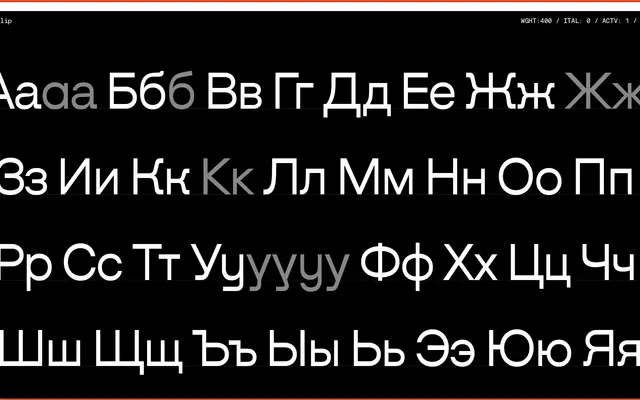
Algorytm Flip
A reverse-contrast companion within the Algorytm collection, drawing on early American gothic types and offering eight weights with an extensive set of character alternates.
Algorytm Flip sits within the broader six-family Algorytm collection, distinguished by its reversed stroke contrast where horizontals carry more weight than verticals. Eight weights run from Extralight to Ultra, and a rich alternate system covers single- and double-storey 'a', geometric variants for 'f', 'r' and 't', and Cyrillic alternates for К and Ж. Coverage extends across Extended Latin and Cyrillic scripts.
A grotesque sans-serif with reverse contrast, meaning stroke weight is heavier on horizontals than verticals, drawing on early American gothic types such as Times Gothic and Inland Gothic N6.